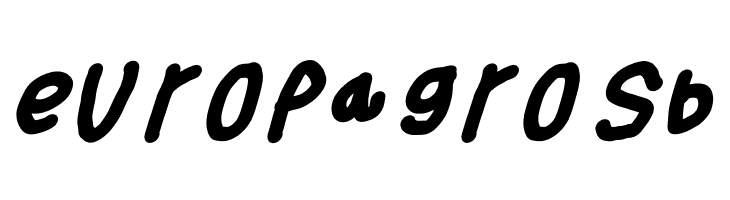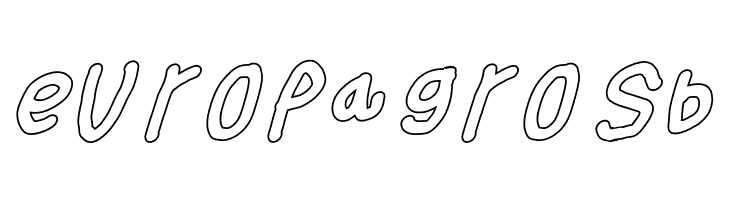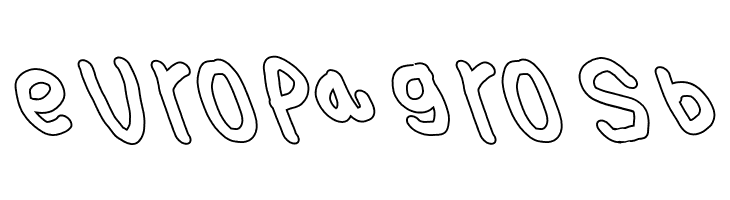
( Fonts by Cannot Into Space Fonts )
A bold, handwritten font with a playful, italicized style.
( Fonts by Cannot Into Space Fonts )
A playful, hand-drawn italic font with outlined characters.
( Fonts by Cannot Into Space Fonts )
A playful, hand-drawn font with thick, uneven strokes and a whimsical style.